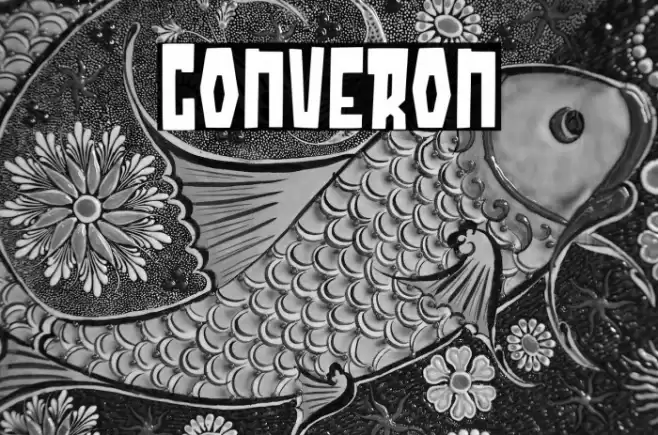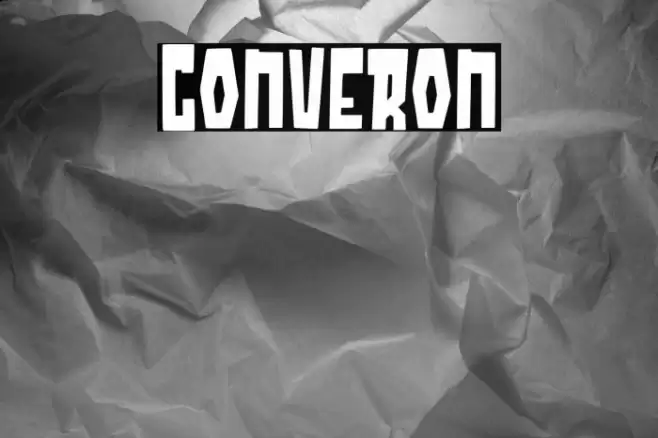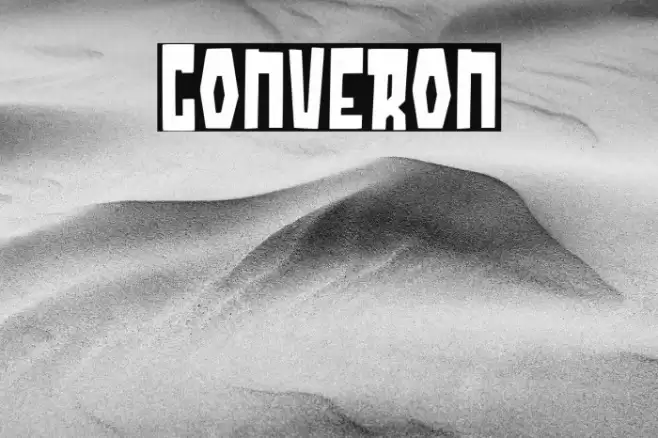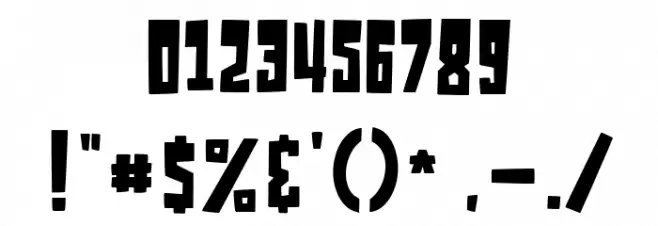
Converon Font
Converon Description
This font features a bold and striking design with a unique, angular style. The characters are heavily stylized with sharp edges and a blocky appearance, giving it a modern and edgy feel. The uppercase and lowercase letters maintain a consistent design, while the numbers and special characters complement the overall aesthetic. The font's distinct look makes it stand out, ideal for projects that require a strong visual impact.
A bold, angular font with a modern and edgy style from Cartoon fonts.
- Proposed Projects: Perfect for posters, album covers, video game titles, and branding that requires a bold statement.
- Contrast: High